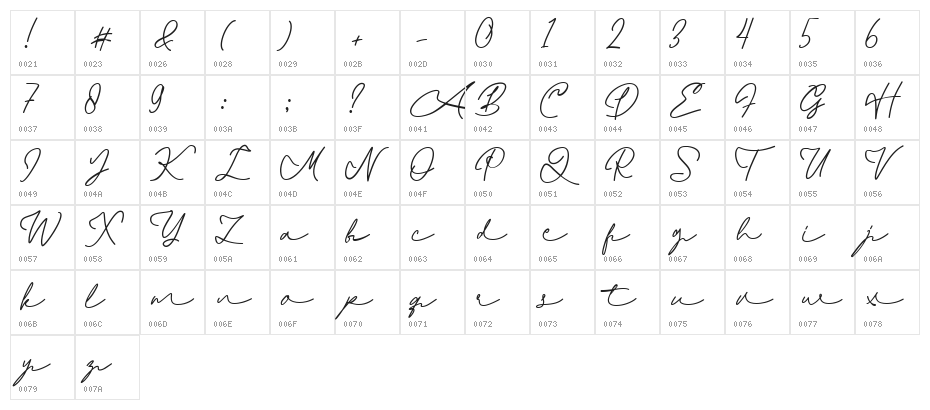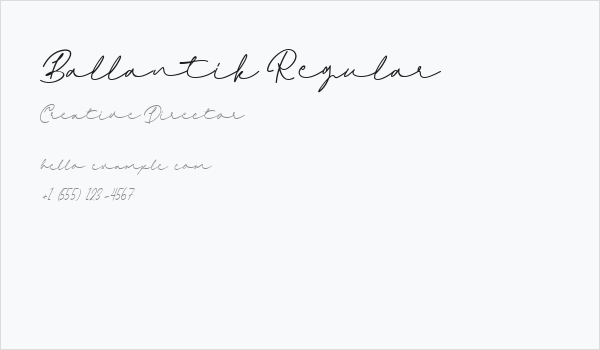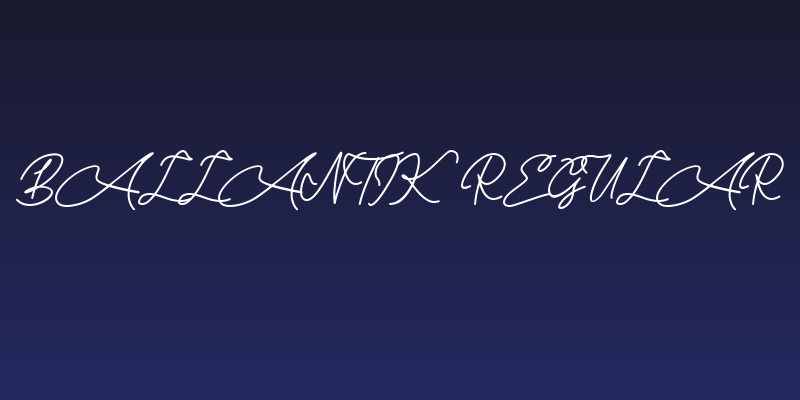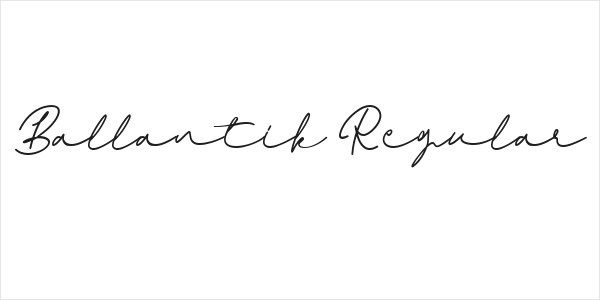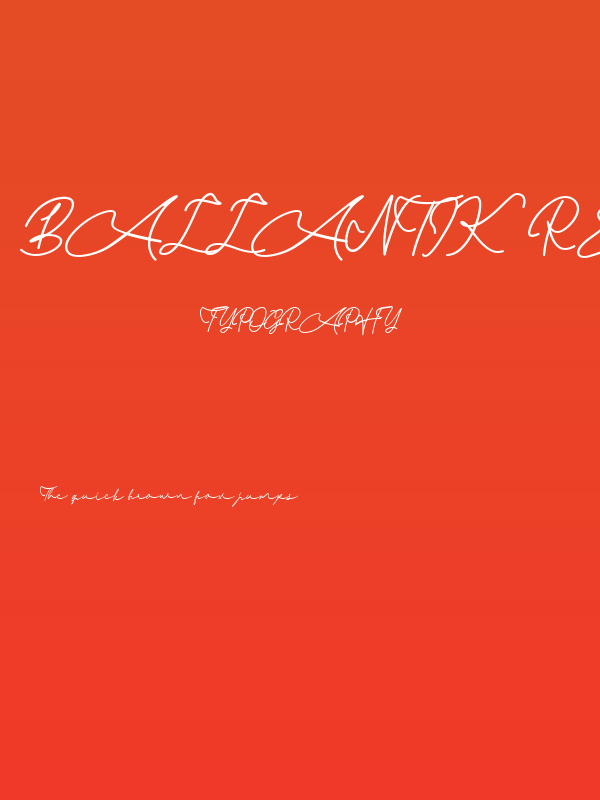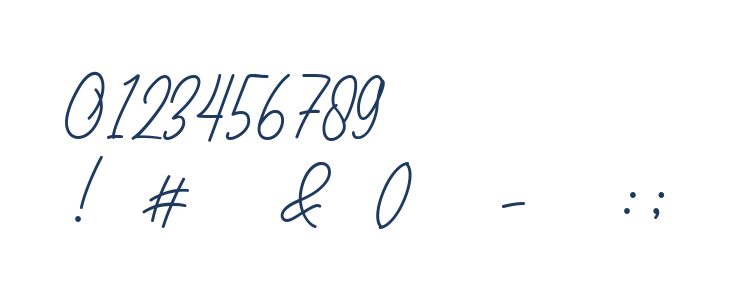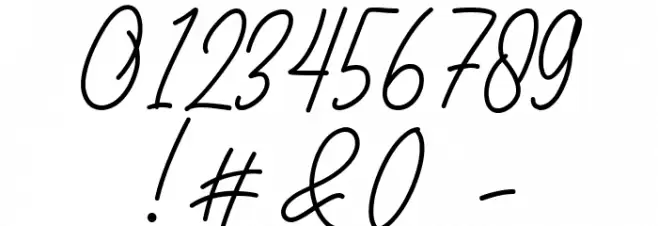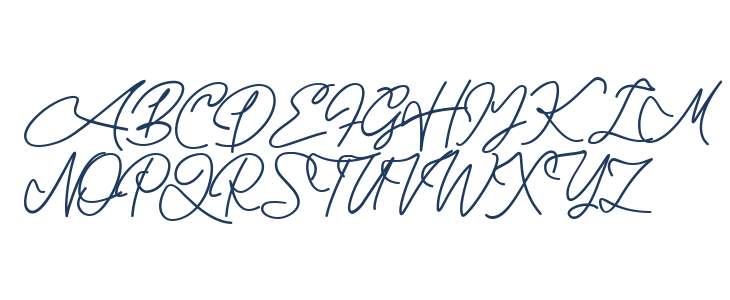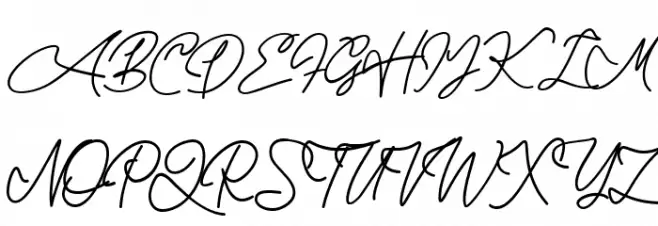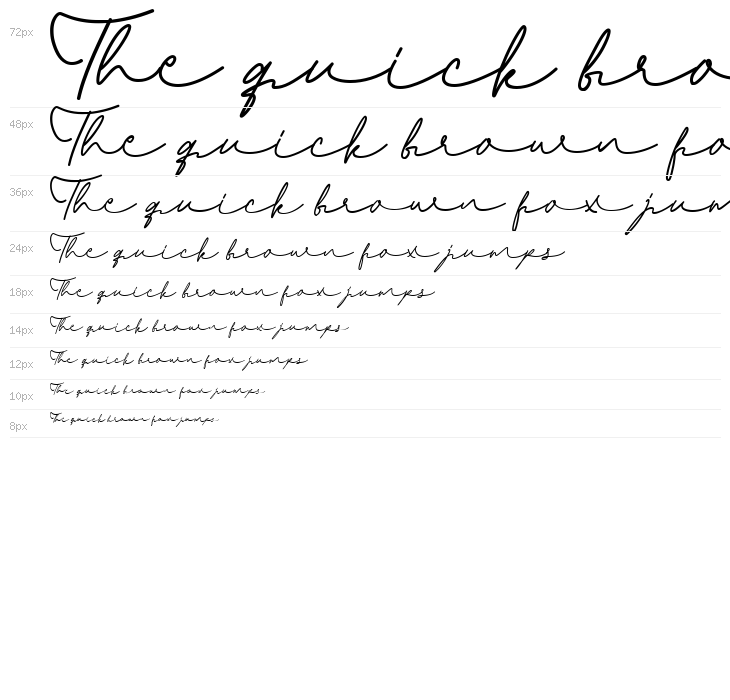
Ballantik Regular Font
Ballantik Regular Description
A flowing, cursive script font with elegant, connected letterforms and a handwritten appearance. The strokes are thin and consistent, with smooth curves and a natural, organic feel.
| Overall Style | Decorative, Handwritten, Elegant |
| Use Case | Logos, Invitations, Decorative headings |
| Proposed Projects | Wedding invitations, personal branding, greeting cards, quotes, social media graphics. |